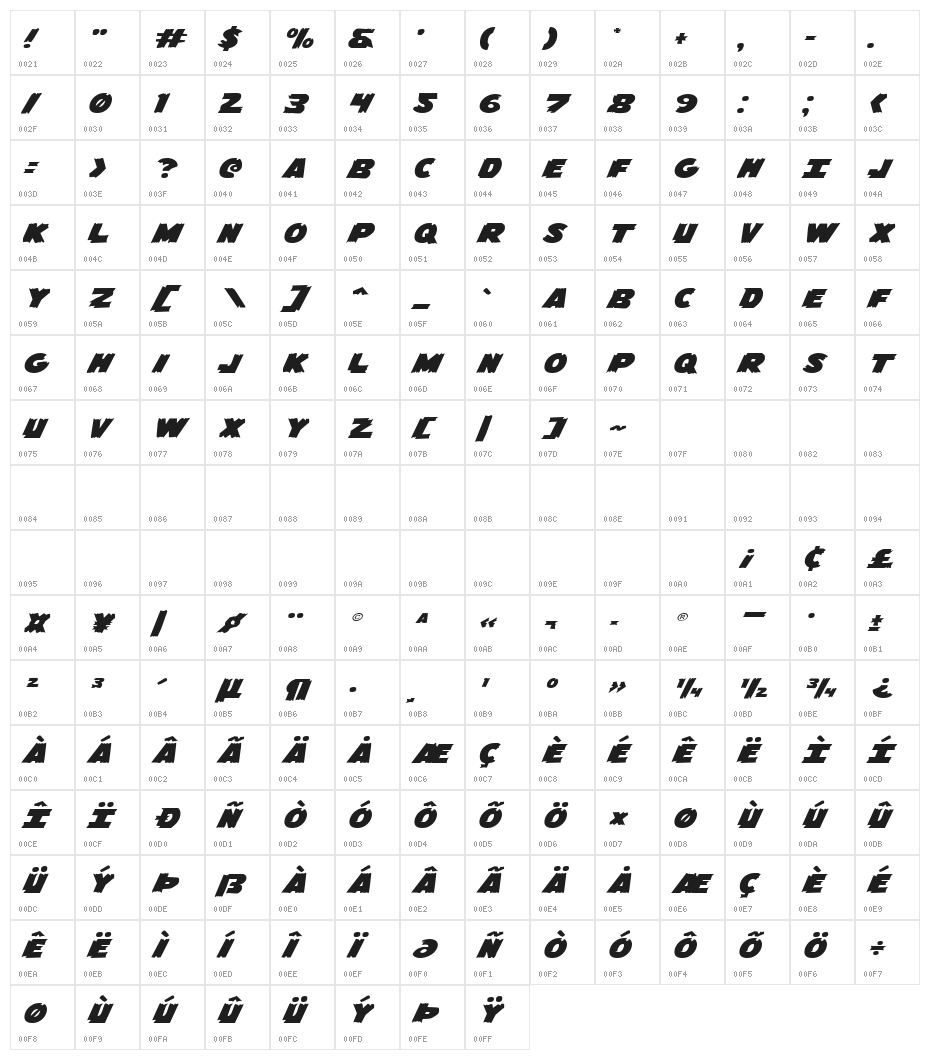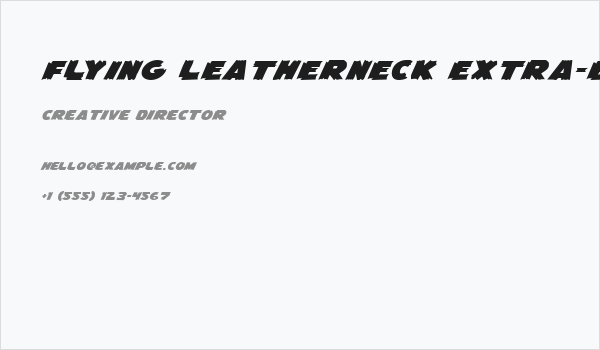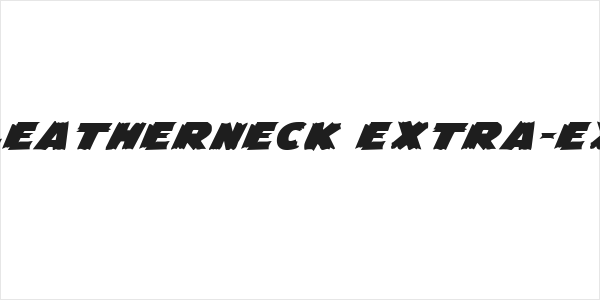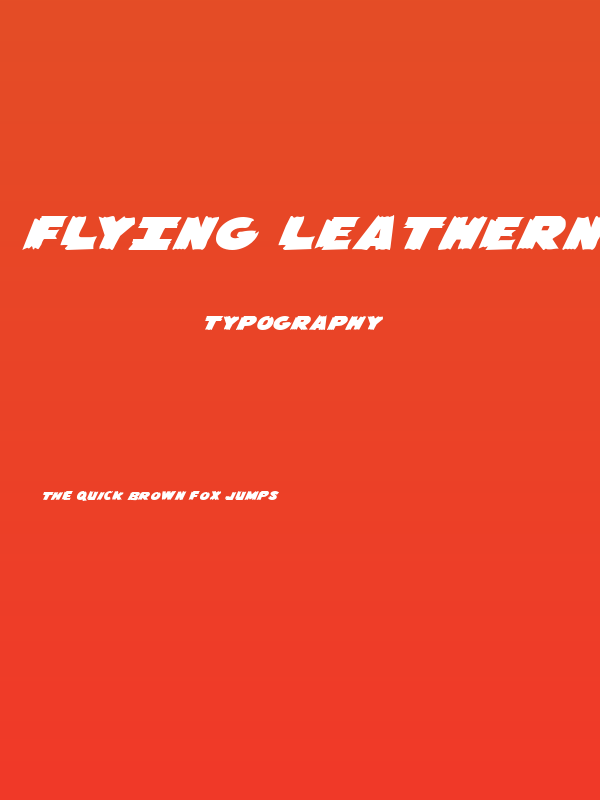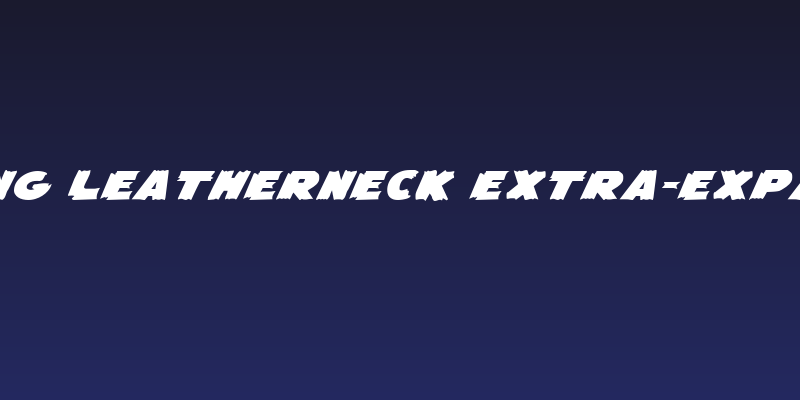
Flying Leatherneck Extra-expanded Font
Flying Leatherneck Extra-expanded Description
This font features a bold and dynamic style with a sense of movement and energy. The characters are sharply angled and have a rugged, distressed appearance, reminiscent of a military or aviation theme. The strokes are thick and consistent, giving the font a strong presence. The uppercase and lowercase letters maintain a uniform style, with the lowercase slightly smaller but equally bold. Numbers and special characters follow the same design, ensuring a cohesive look across all text. The font's unique aesthetic makes it stand out, suitable for projects that require a bold statement.
Proposed ProjectsIdeal for military-themed designs, aviation posters, action movie titles, and bold branding projects.